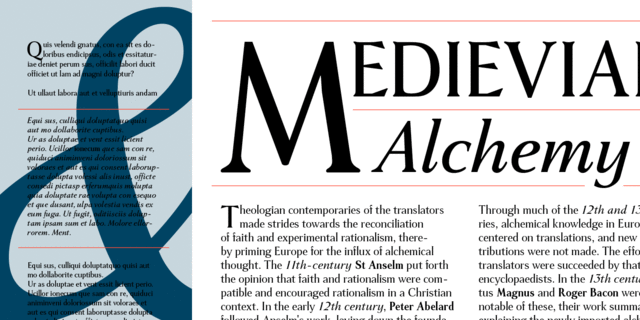
Haverj (4 fonts)
About HaverjAn original typeface designed for ParaType in 2004 by Armenian designer Manvel Shmavonyan. It’s based on the lettering created in 1970s by outstanding Armenian type designer Henrik Mnatsakanyan (1923—2001) of the same name. ‘Haverj’ means ‘Eternally’ in Armenian. The face resembles many regular text serif fonts but elements like serifs and terminals make it eccentric and a little bit funny. The shape of diagonal legs in capital K and R resembles book lettering of the 1950s—60s. Using it in text, advertising and display typography may lead to surprising effects.
Associations for font family HaverjTypeface personality and character:
original, distinctive, noble, expensive, rich, precious, elite, select, polite, sexy, stone, pretentious, ancient, historical